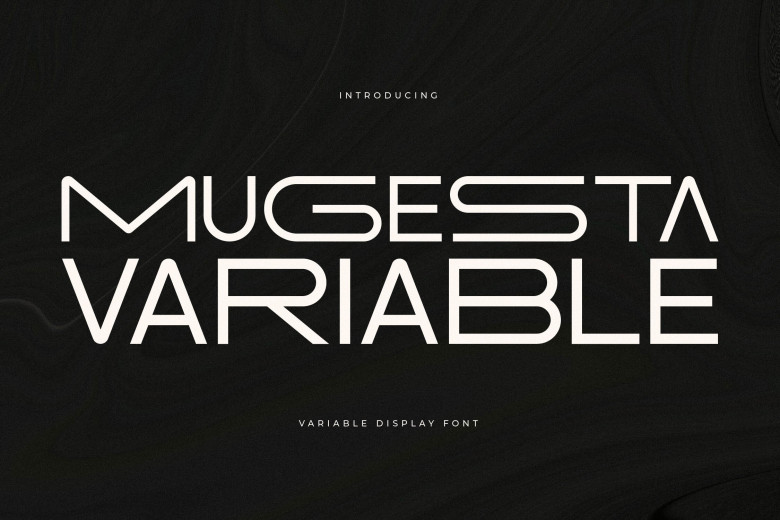
Mugesta Font
Mugesta can be described as an elegant yet flexible sans display typeface that stands out for its distinct style and modern appearance. Perfect for logo design, movie, book name design, fashion, magazine, content publication, clothing lettering as well as quotes among other applications,
Mugesta is perfect for sophisticated yet luxurious logos, movie/book name designs, clothing lettering and lettering quotes and much more.
Mugesta Display Font